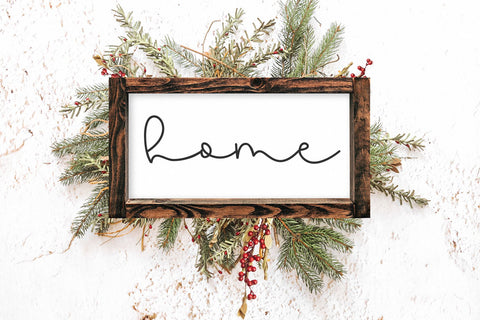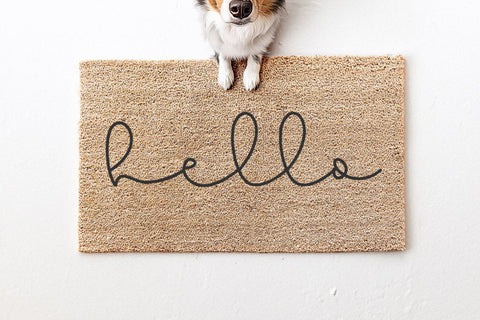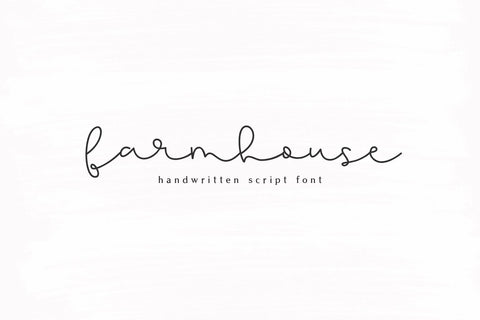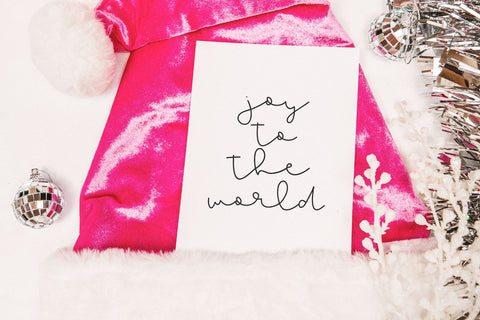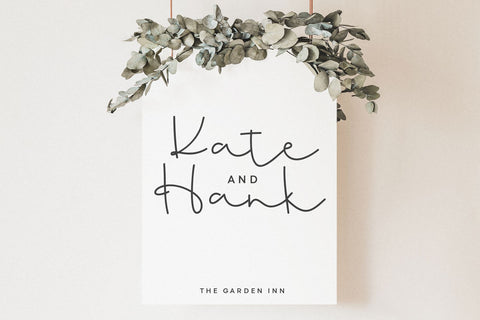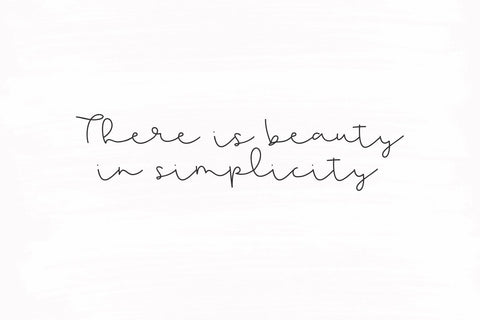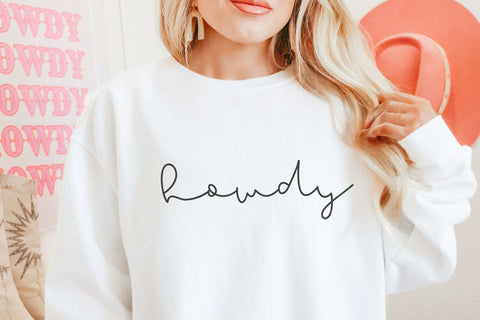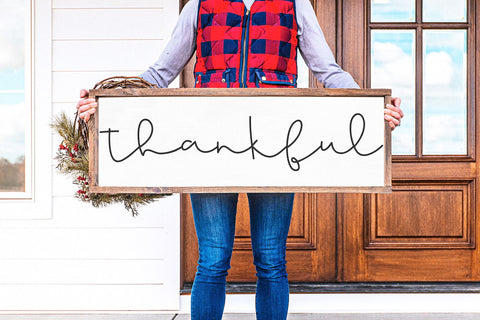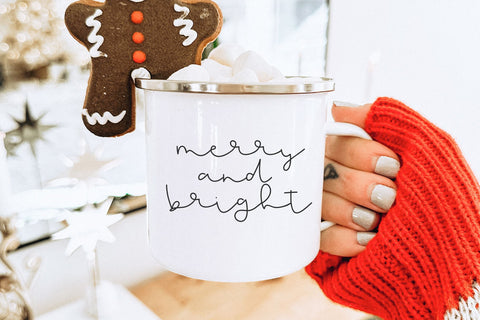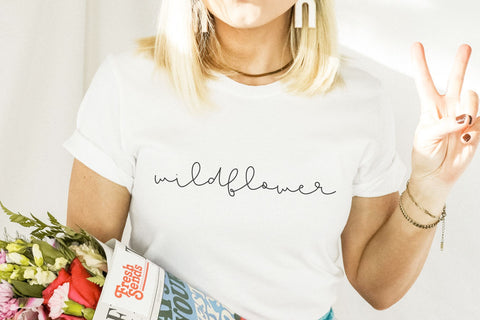
Farmhouse - Script Font
Farmhouse is a handwritten script font.
This font is perfect for logos, farmhouse signs and svgs, quotes, shirts, pantry labels, stickers, goodnotes and more!